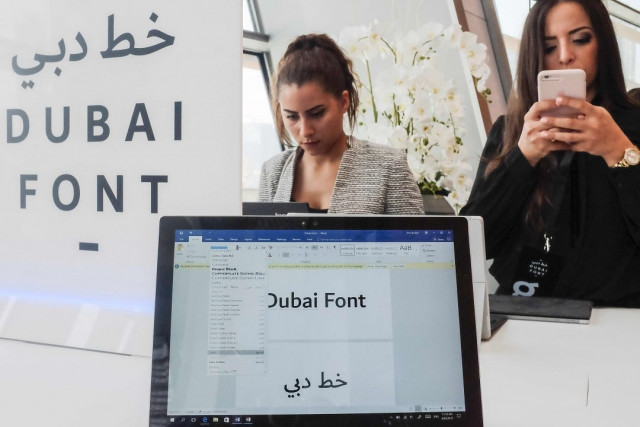
Dubai becomes first city to get its own Microsoft font
The font is available to 100 million Office 365 users in multiple languages around the world
Attendees look at computers showing the "Dubai Font", the first typeface developed by Microsoft for Dubai, during a conference to announce its launch on April 30, 2017, in the United Arab Emirate. PHOTO: AFP
DUBAI: The Dubai government on Sunday announced the launch of "Dubai Font", the first typeface developed by Microsoft for a city, which will be available in 23 languages.
The font was developed simultaneously in Latin and Arabic script and is available to 100 million Office 365 users around the world.
Dubai Crown Prince Hamdan bin Mohammed al-Maktoum has urged all government institutions to adopt the font in official correspondence.
The Executive Council of Dubai, which manages the affairs of the city-state and is headed by Prince Hamdan, said the font reflects the United Arab Emirates' vision "to become a regional and global leader in innovation".
"It is the first font to be developed by a city and to carry its name", Executive Council secretary general Abdulla al-Shaiban told a news conference.
Home to the world's tallest tower and the largest shopping mall in the Middle East, image-conscious Dubai has pushed in recent years to broaden its appeal by investing in its technology and culture.
The emirate also aims to emerge as the world's happiest city, and last year appointed a happiness minister.
In 2016, some 14.9 million tourists visited Dubai, the most liberal of the UAE's seven emirates and its least dependent on oil revenues.
Dubai will host the six-month Expo 2020 under the themes of sustainability and mobility.